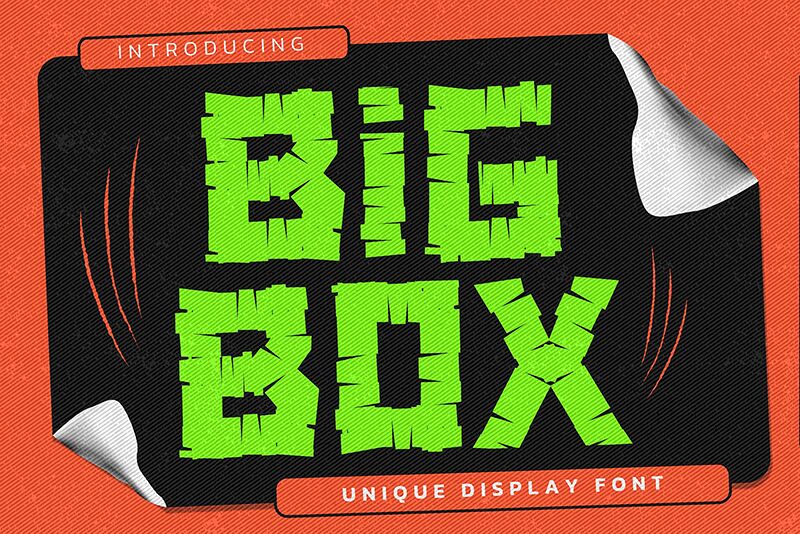
Bigbox
BIG BOX is a unique display font designed by Gassstype, featuring a signature style and a classy, cartoon-inspired design. With its semi-light weight and semi-expanded width, this font is perfect for a wide range of creative projects.
Use it to create eye-catching watermarks on photography, design memorable logos and branding elements, craft stunning invitations, or enhance product designs. Its natural hand-drawn feel adds a beautiful and authentic touch to any project. Whether you're working on stationery, wedding designs, labels, product packaging, or special events, BIG BOX will elevate your work with its distinct charm. This versatile handmade font is also ideal for book covers, crafts, photography overlays, signs, window art, scrapbooking, tags and much more.
Add a touch of personality to your designs with BIG BOX!